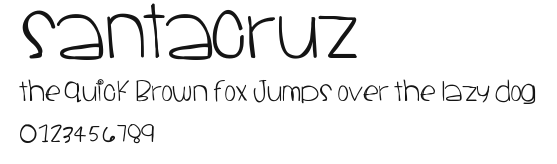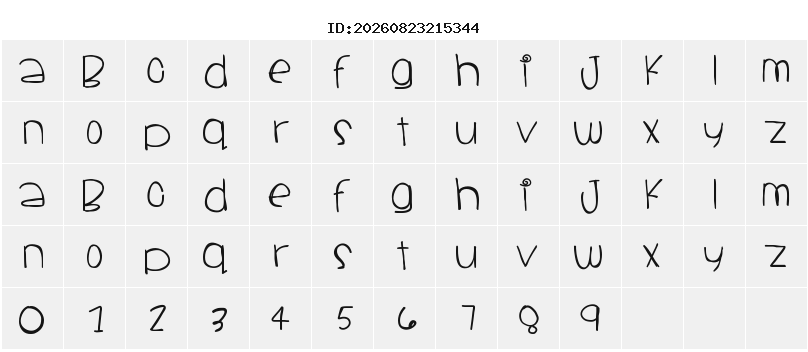
• Font Name: SantaCruz
• Full Font Name: SantaCruz
• PostScript Name: SantaCruz
• Character Count: 101
About SantaCruz.ttf
SantaCruz.ttf is a modern, elegant sans-serif font designed for ultimate readability and visual harmony. Perfect for branding, headlines, web design, and print materials.